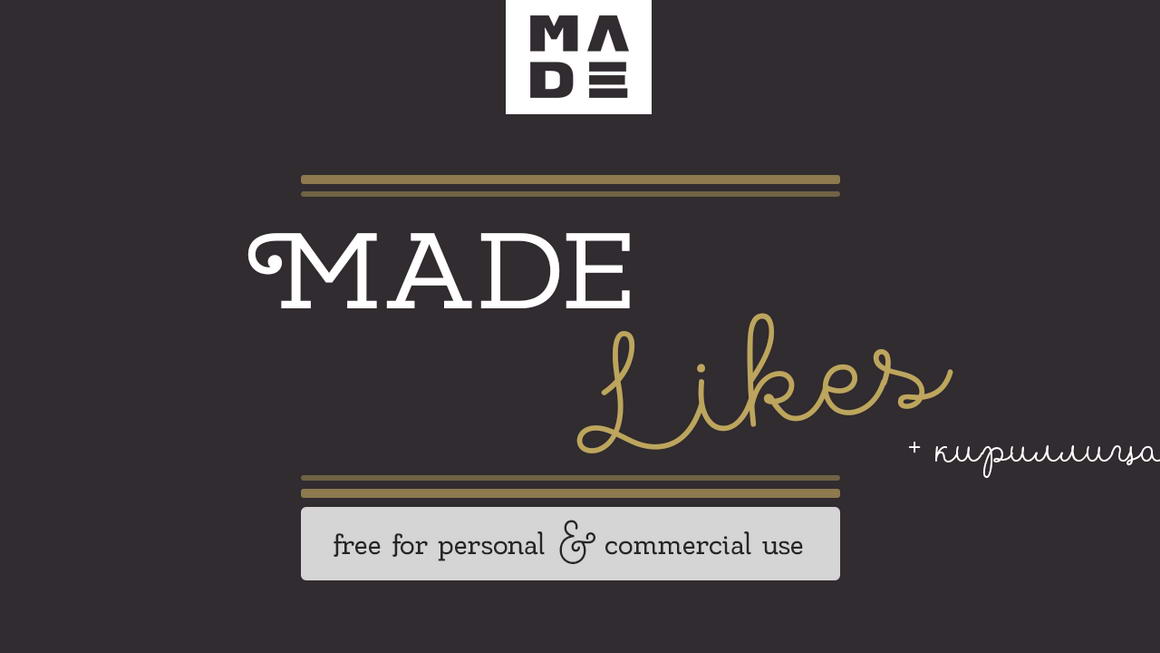
Made Likes Font Duo Font
MADE Likes is a beautiful font duo, featuring combination of Script and Slab Serif fonts. It contains uppercase and lowercase letters and supports Latin and Cyrillic language.
MADE Likes font duo is perfect for logo, branding, packaging, handmade goods and vintage designs, apparels and other artworks.